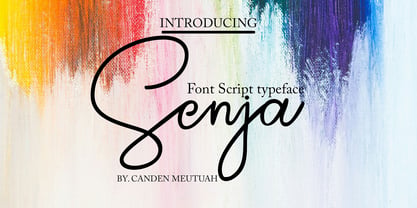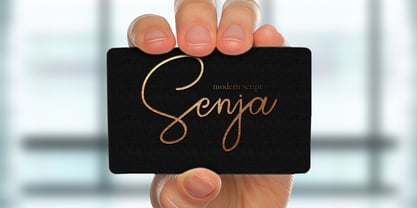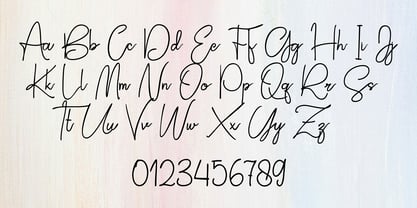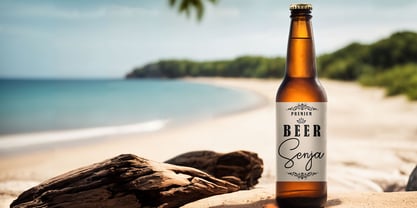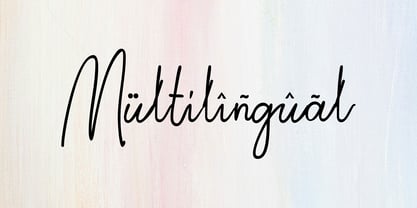
Senja
by Canden Meutuah
The Senja Font Family was designed by Canden Meutuah and published by Canden Meutuah. Senja contains 1 styles. More about this family
Senja is an elegant and refined handwritten typeface that enhances your design projects with its unique charm. Ideal for a variety of applications, including logos and branding, social media posts, advertisements, business cards, wedding invitations, and product designs, this font brings extraordinary beauty to your work. Its versatility makes it perfect for posters, logo designs, editorial titles, album covers, and fashion branding. With its distinctive touch, Senja captures attention and elevates your creative endeavors, making it a standout choice for any designer.
Designers: Canden Meutuah
Foundry: Canden Meutuah